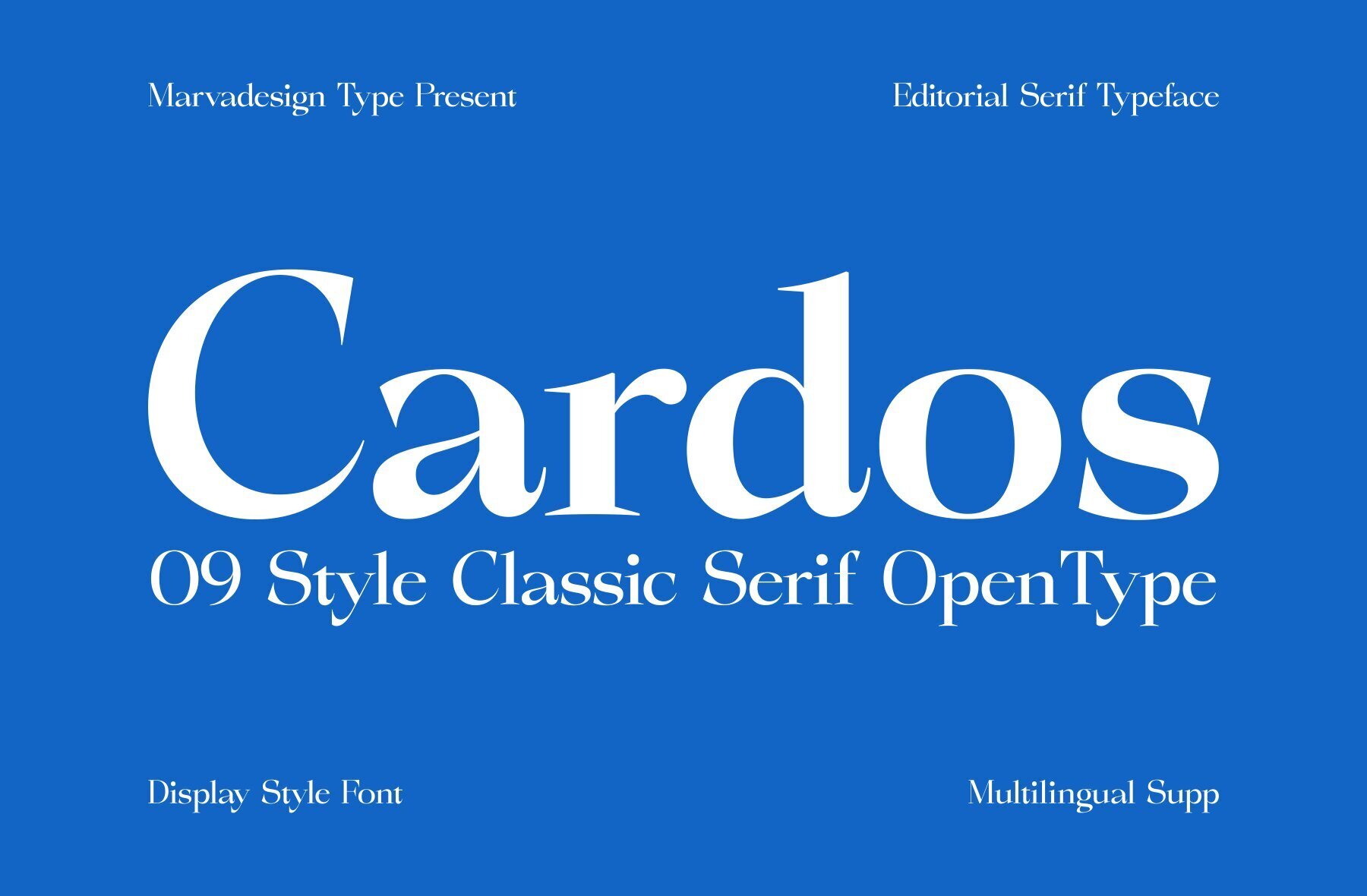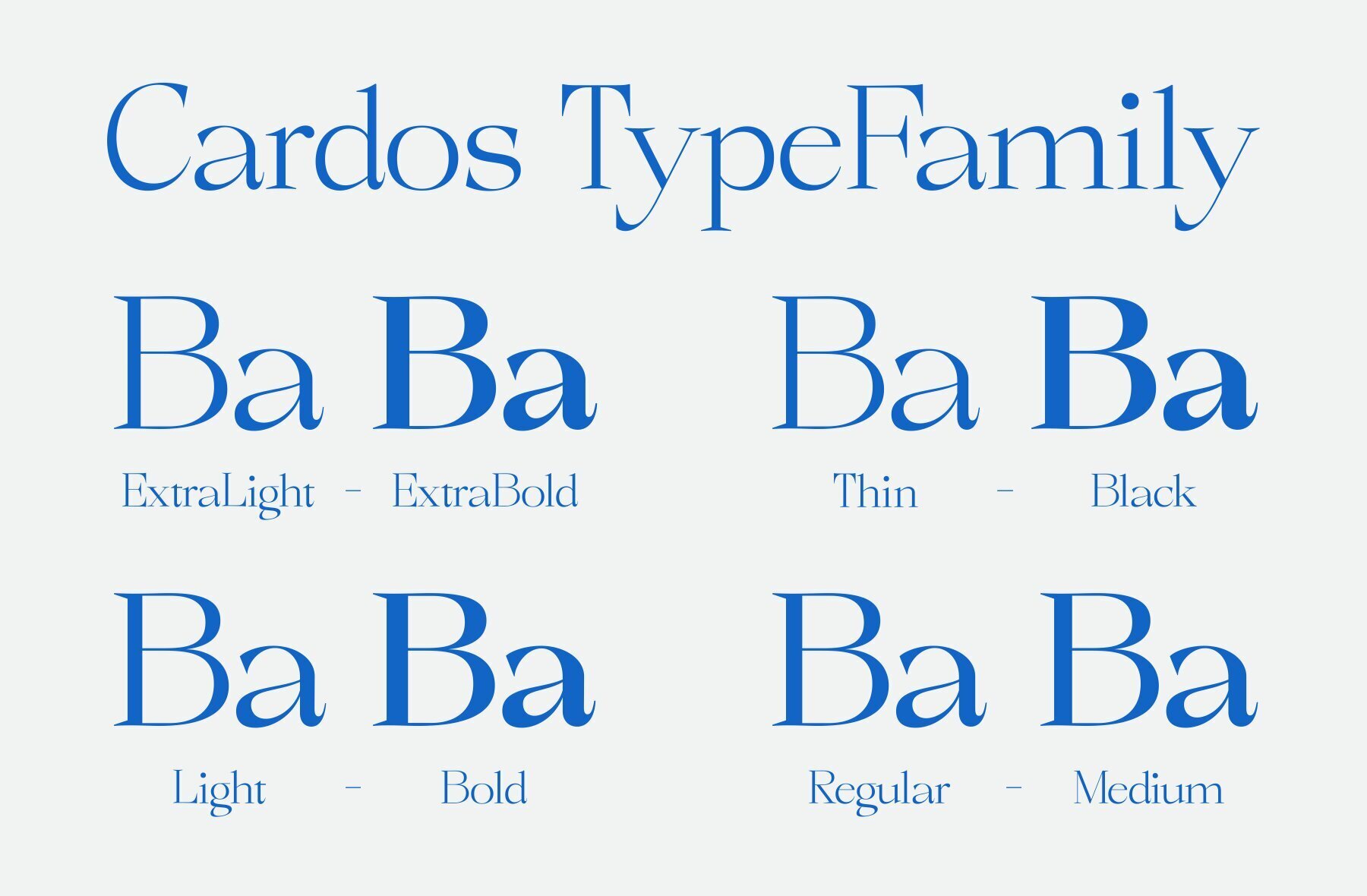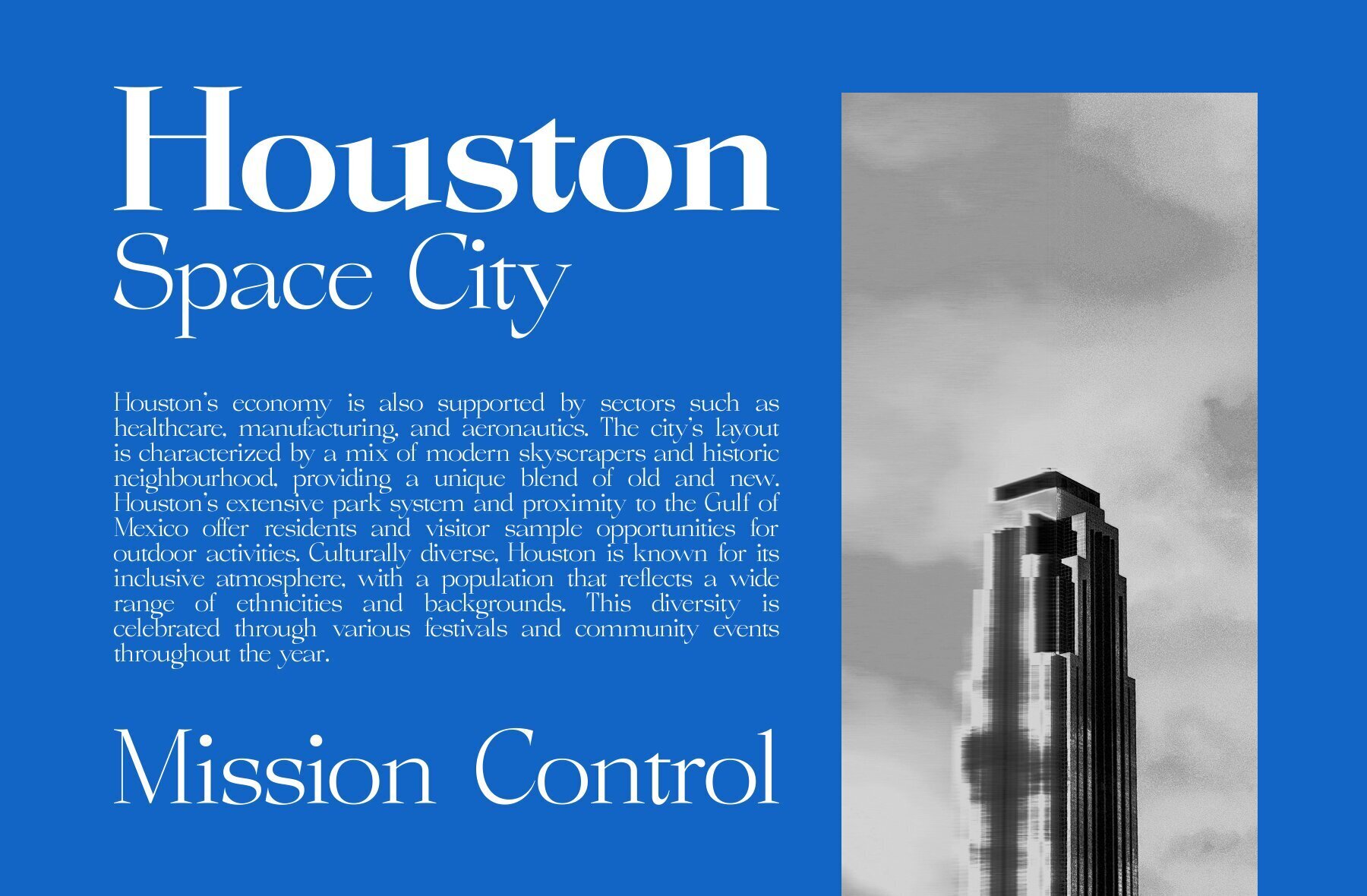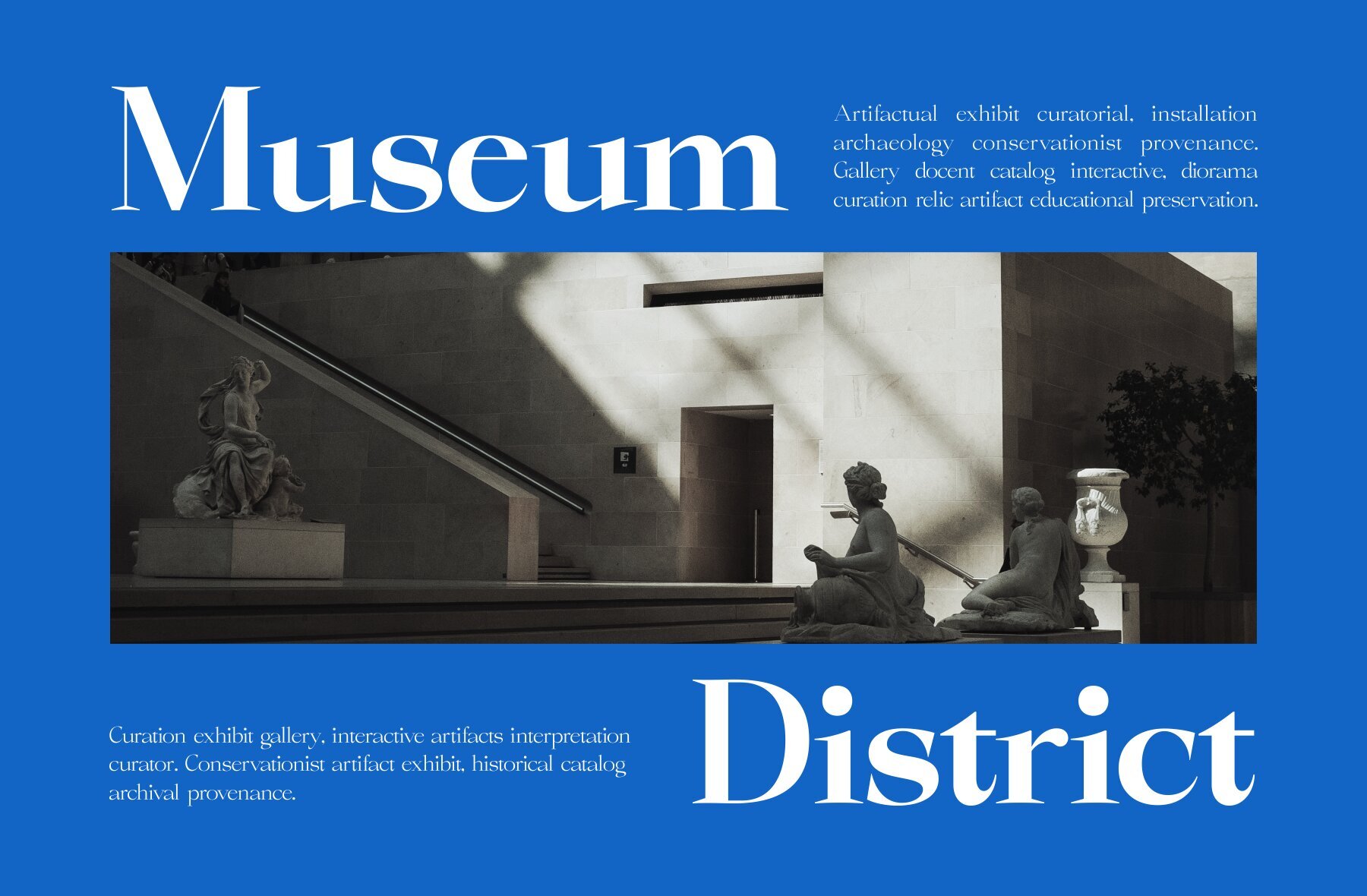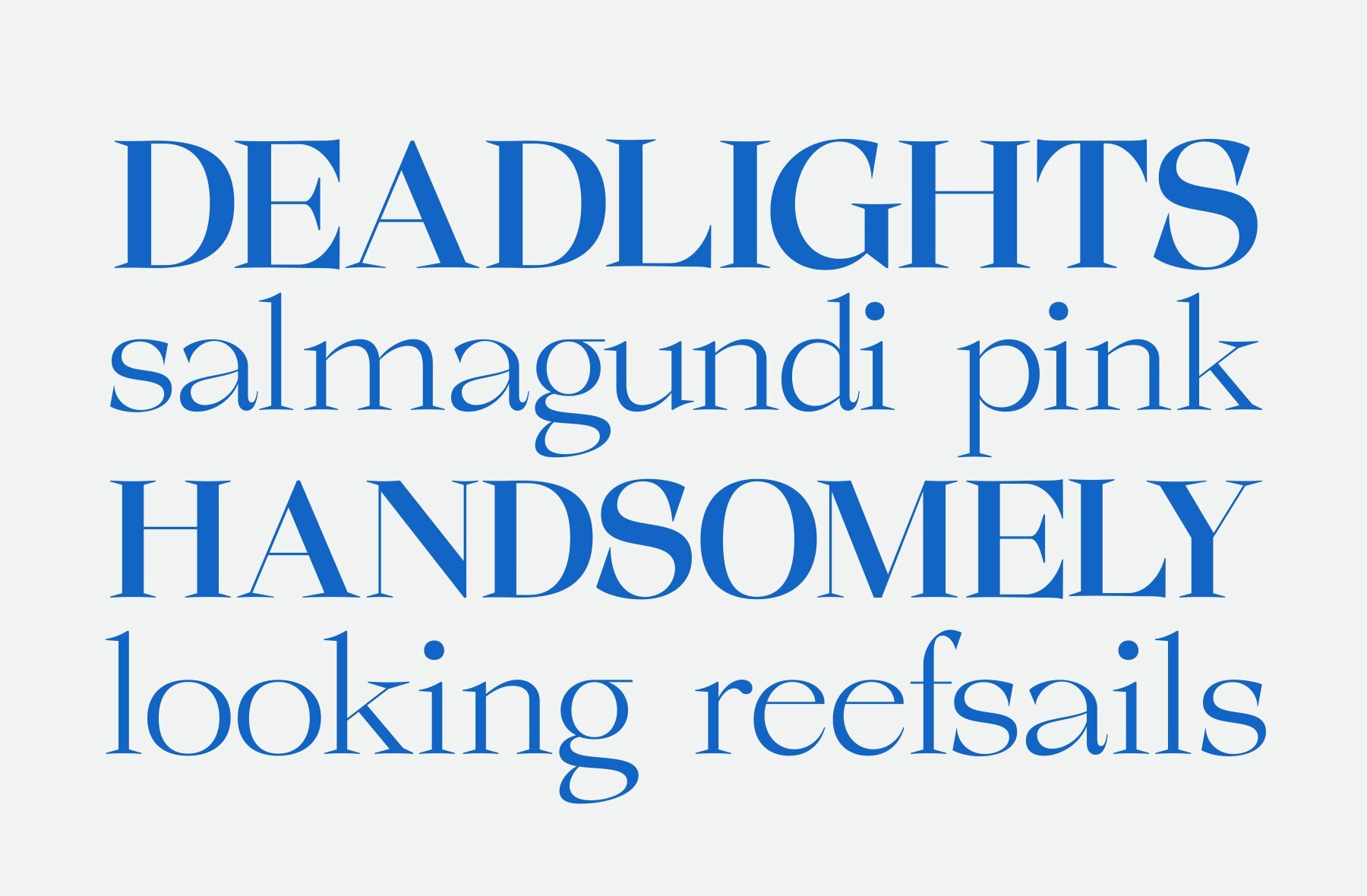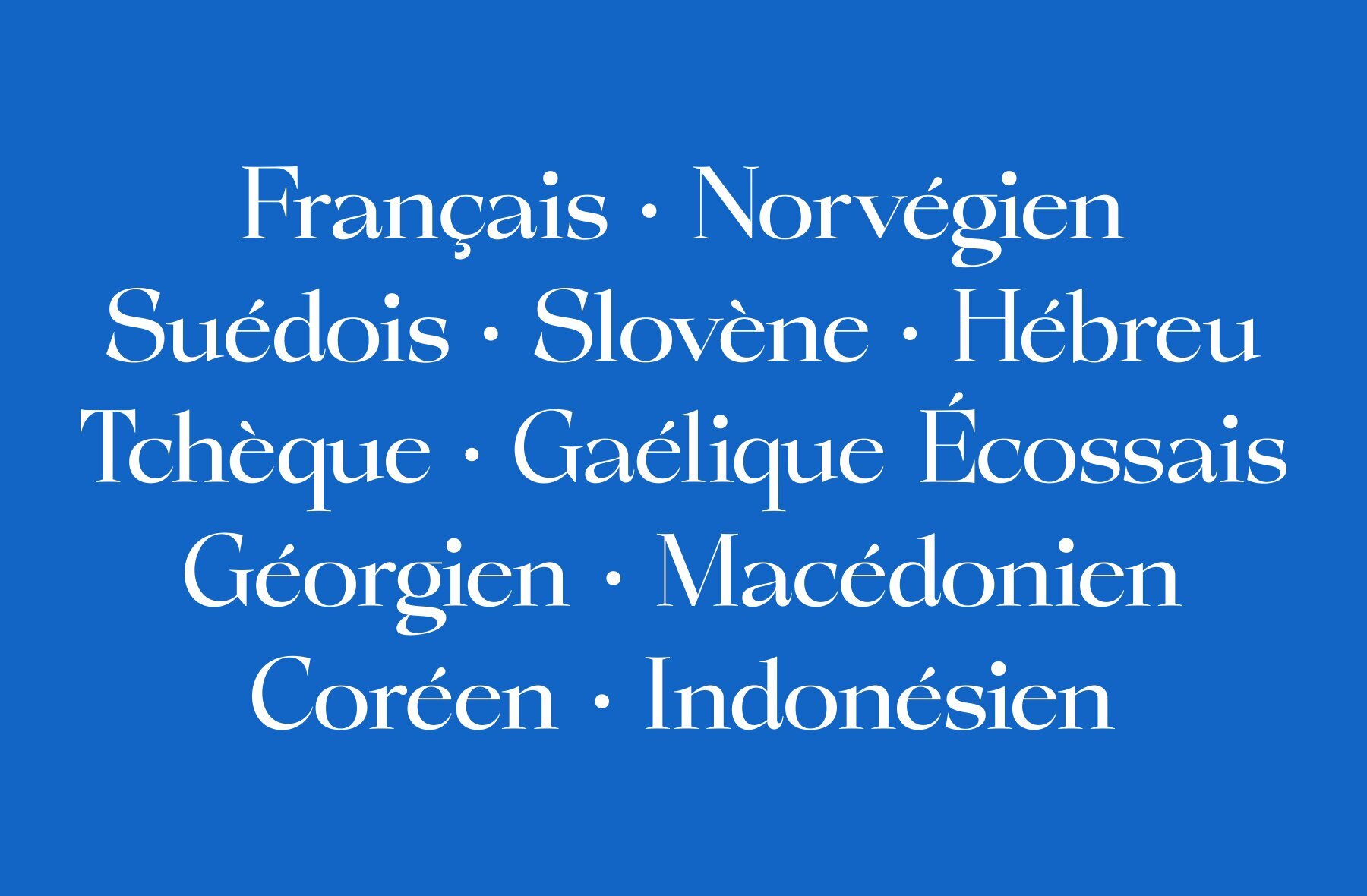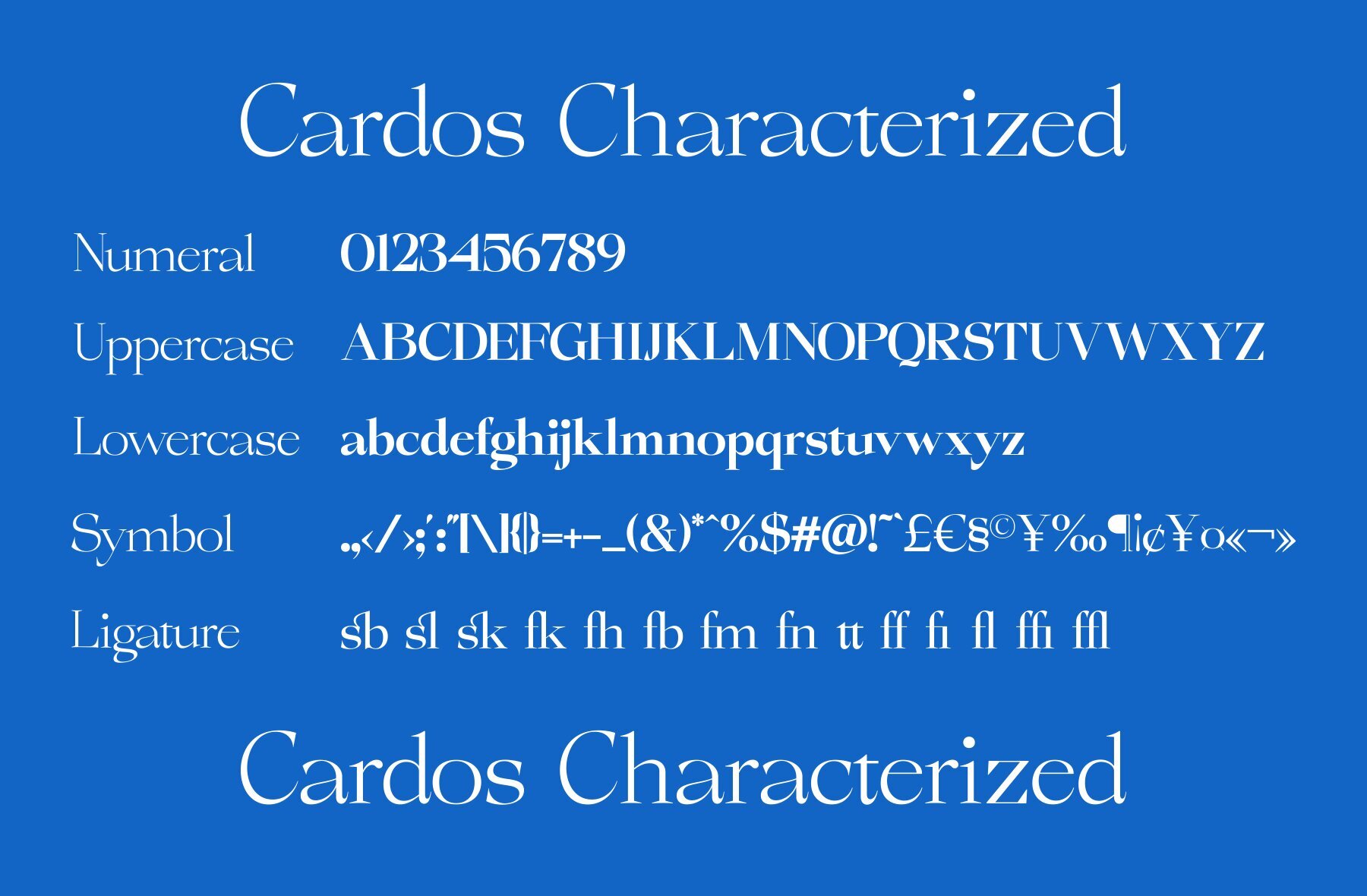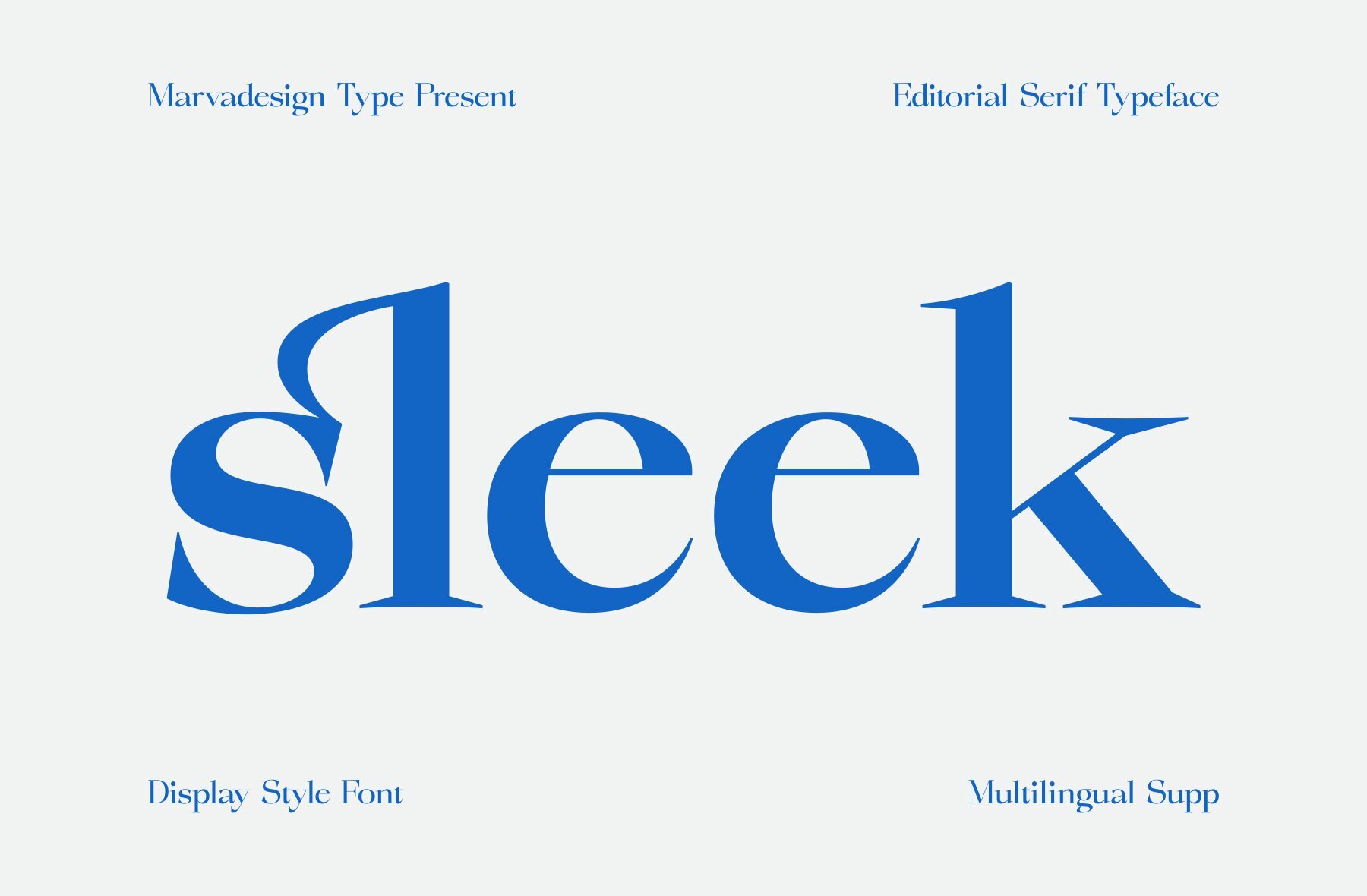
Cardos Font
Cardos VF
Introducing a classic serif font, renowned for its elegant design and versatility. This font offers nine variations: Thin, Extra Light, Light, Regular, Medium, SemiBold, Bold, ExtraBold, and Black. Each variant is meticulously crafted to ensure both readability and aesthetic appeal across different weights. This makes it suitable for a wide range of typographic applications, from digital to print media.
The timeless serif style of this font enhances legibility and adds a sophisticated touch. It's perfect for projects that require clarity and traditional elegance. Whether you're designing a website, an editorial piece, or any creative project, this font provides a beautiful and functional choice that adapts seamlessly to your needs.